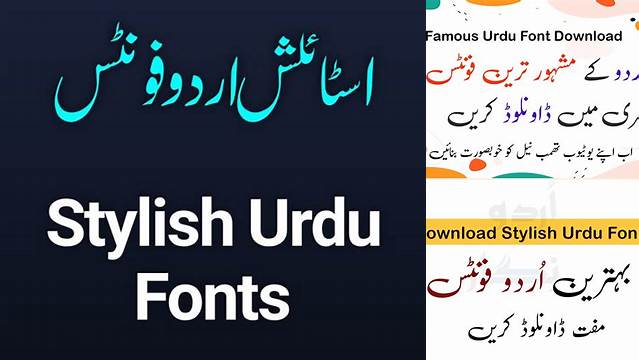
Free Urdu Font Generator Online
Hey guys! Are you looking to create some stunning Urdu text designs but struggling with fonts? Well, you've come to the right place! In this article, we're diving deep into the world of free Urdu font generators online. We'll explore everything from the basics of Urdu calligraphy to the nitty-gritty of using these fantastic tools. So, buckle up and let's get started!
Urdu Calligraphy Basics
Before we jump into the online generators, let's take a quick look at the beautiful art of Urdu calligraphy. Urdu, written from right to left, boasts a rich history of artistic expression. The flowing scripts and elegant curves make it a favorite for everything from poetry to graphic design. Understanding the fundamentals of Urdu calligraphy can help you appreciate and utilize Urdu fonts more effectively. You'll find that many online generators try to mimic these classic styles, so knowing the basics gives you a leg up. You can check out different styles like Naskh, Nastaliq, and Kufic to get inspired. Learning about the origins and evolution of these scripts adds depth to your design choices, allowing you to create pieces that are both visually appealing and culturally relevant. So, dive into the history and let your creativity flow!
Why Use an Online Urdu Font Generator?
So, why should you even bother with an online Urdu font generator? Well, for starters, they're incredibly convenient. No need to install hefty software or spend hours tweaking settings. You can access these tools from anywhere with an internet connection. Plus, many of them are completely free, which is a huge bonus. Online Urdu font generators offer a quick and efficient way to create unique Urdu text designs. They often come with a variety of templates and customization options, allowing you to experiment with different styles and effects. If you're a beginner, these generators can be a fantastic starting point to explore Urdu typography. Even seasoned designers can benefit from the speed and flexibility these tools offer. So, whether you’re working on a personal project or a professional design, online generators can save you time and effort, making them an invaluable resource.
Top Features to Look for in a Free Urdu Font Generator
When choosing an online Urdu font generator, there are a few key features you'll want to keep an eye out for. First, variety is the spice of life! Look for a generator that offers a wide range of Urdu fonts, from classic styles to modern interpretations. Customization options are also crucial. Can you adjust the size, color, and spacing? How about adding shadows or outlines? The more control you have, the better. A great Urdu font generator should offer a blend of font styles, customization options, and ease of use. Preview functionality is another must-have. You’ll want to see how your text looks before you commit to downloading it. Also, consider the output format. Does the generator allow you to download your text as an image or a vector file? This can impact how you use the text in your projects. Finally, don’t forget about user-friendliness. A clean and intuitive interface can make the whole process much smoother and more enjoyable.
Choosing the Right Urdu Font for Your Project
Choosing the right Urdu font is crucial for making your project shine. Think about the tone and purpose of your design. Are you creating something formal and elegant? Or something fun and playful? Different fonts evoke different emotions, so it's important to choose one that aligns with your message. Selecting the appropriate Urdu font is essential for conveying the right tone and message in your design. For example, a classic Nastaliq font might be perfect for a wedding invitation, while a bolder, more modern font might be better for a poster. Consider the readability of the font as well. If your text is too difficult to read, your message will get lost. Also, think about the overall design aesthetic. Does the font complement the other elements in your design? These are all important factors to consider when making your choice. So, take your time, explore different options, and choose the font that best represents your vision.
Common Mistakes to Avoid When Using Urdu Font Generators
While Urdu font generators are super helpful, there are a few common mistakes you should try to avoid. One biggie is using too many different fonts in a single project. This can make your design look cluttered and confusing. Stick to a maximum of two or three fonts for a cohesive look. Avoid common mistakes like using too many fonts, ignoring readability, overlooking licensing issues, and not proofreading your text. Another mistake is ignoring readability. A fancy font might look cool, but if people can't read your text, it's not doing its job. Also, be mindful of licensing issues. Some fonts are free for personal use but require a license for commercial use. Always double-check the terms before using a font in a project that you plan to sell. Finally, don't forget to proofread your text! Even the most beautiful font won't save you from a typo. So, keep these tips in mind and you'll be creating stunning Urdu designs in no time!
Tips for Designing with Urdu Fonts Online
Designing with Urdu fonts online can be a blast, but it also requires a bit of finesse. One key tip is to pay attention to the spacing between letters and words. Urdu script can sometimes appear crowded, so adjusting the kerning and tracking can make a big difference in readability. Effective Urdu font design involves careful spacing, color contrast, and alignment, ensuring visual appeal and readability. Another important aspect is color contrast. Make sure your text stands out against the background. A dark font on a light background is generally the safest bet, but don't be afraid to experiment with different color combinations. Alignment is another crucial element. Whether you're aligning your text left, right, or center, consistency is key. A well-aligned design looks polished and professional. Finally, remember to keep your target audience in mind. What kind of message are you trying to convey? The font you choose should reflect that message. So, use these tips to elevate your Urdu designs and make them truly stand out.
Exploring Different Styles of Urdu Fonts
The world of Urdu fonts is incredibly diverse, with a style to suit every project. Nastaliq is perhaps the most iconic Urdu script, known for its elegant curves and flowing lines. It's often used in poetry and literature. Naskh is another classic style, more geometric and straightforward, making it ideal for body text. Different Urdu font styles, such as Nastaliq, Naskh, and Kufic, offer unique aesthetics suitable for various design purposes. Kufic, with its angular and decorative forms, is often seen in Islamic art and architecture. Then there are more modern and experimental fonts that push the boundaries of traditional Urdu calligraphy. These might incorporate bold, geometric shapes or playful, hand-drawn elements. Exploring these different styles can help you find the perfect font for your project. Each style has its own unique personality and can convey a different mood or message. So, dive in and discover the rich tapestry of Urdu fonts!
Urdu Font Generator for Calligraphy
For those passionate about calligraphy, an Urdu font generator can be a game-changer. These generators often offer fonts that closely mimic the strokes and nuances of traditional calligraphy, allowing you to create stunning calligraphic designs without needing to be a master calligrapher yourself. An Urdu font generator specifically designed for calligraphy can help recreate the elegance and artistry of traditional scripts. Many calligraphy-focused generators offer options to adjust the thickness and weight of the strokes, giving you even more control over the final result. You can also find fonts that emulate specific calligraphic styles, such as Thuluth or Diwani. These tools are perfect for creating invitations, certificates, and other formal documents where a touch of elegance is desired. So, if you're looking to add a calligraphic flair to your Urdu designs, explore generators that cater specifically to this art form.
Best Online Urdu Font Generators for Beginners
If you're just starting out with Urdu fonts, finding the right online generator can make all the difference. Look for generators with a simple, intuitive interface and clear instructions. For beginners, the best online Urdu font generators offer user-friendly interfaces, clear instructions, and helpful tutorials. Generators that offer a preview function are also great for beginners, as you can see exactly how your text will look before you download it. Many generators also provide templates and pre-designed layouts, which can be a helpful starting point. Don't be afraid to try out a few different generators to see which one you like best. The goal is to find a tool that makes the process of creating Urdu text designs easy and enjoyable. With a little practice, you'll be creating beautiful designs in no time!
Urdu Font Generator for Professional Use
For professional designers, an Urdu font generator needs to offer more than just basic functionality. You'll want a generator that provides high-quality output, a wide selection of fonts, and advanced customization options. Professional Urdu font generators offer high-quality output, extensive font libraries, and advanced customization features for commercial projects. The ability to download fonts in vector format is crucial, as this allows you to scale the text without losing quality. Licensing is also a key consideration. Make sure the generator offers fonts that are suitable for commercial use. Paid generators often provide more robust features and better licensing terms, making them a worthwhile investment for professional projects. So, if you're looking to use Urdu fonts in your professional work, choose a generator that meets your specific needs and requirements.
Using Urdu Font Generator for Social Media
Social media is a visual medium, and using eye-catching Urdu fonts can help your content stand out. An online generator can be a quick and easy way to create graphics with stylish Urdu text for your social media posts. An Urdu font generator can be used to create visually appealing text for social media posts, enhancing engagement and reach. When designing for social media, readability is key. Choose fonts that are clear and easy to read, even on small screens. Consider using bold fonts or adding a background color to make your text pop. You can also use different font styles to highlight key messages or create visual interest. Many generators offer templates specifically designed for social media, which can save you time and effort. So, use the power of Urdu fonts to elevate your social media presence and engage your audience.
Urdu Font Generator for Logos
A well-designed logo can make a big impact, and choosing the right Urdu font is crucial. An online generator can help you experiment with different font styles and create a unique logo that reflects your brand identity. An Urdu font generator can assist in creating unique and memorable logos that effectively represent a brand's identity. When designing a logo, simplicity is often best. Choose a font that is clean, legible, and memorable. Avoid fonts that are too ornate or difficult to read. Consider the overall aesthetic of your brand. Is it modern and minimalist, or traditional and elegant? The font you choose should align with your brand's personality. You can also use an Urdu font generator to create variations of your logo, such as a version with text only or a version with an icon and text. So, use these tools to craft a logo that truly represents your brand.
Urdu Font Generator for Graphic Design
Graphic design relies heavily on typography, and Urdu fonts can add a unique flair to your projects. An online generator can be a valuable tool for graphic designers, allowing you to quickly create text elements in various styles. Urdu font generators are valuable tools for graphic designers, enabling the creation of unique and stylish text elements. Whether you're designing a poster, a brochure, or a website, the right font can make all the difference. Experiment with different font styles, sizes, and colors to create visually appealing layouts. Consider the overall composition of your design. How does the Urdu text interact with other elements, such as images and shapes? Use the generator to preview your text in different contexts and make adjustments as needed. So, embrace the versatility of Urdu fonts and elevate your graphic designs.
Urdu Font Generator for Website Design
Choosing the right Urdu fonts for your website is crucial for creating a visually appealing and user-friendly experience. An online generator can help you find fonts that complement your website's design and enhance readability. For website design, Urdu font generators can help select fonts that enhance readability and complement the overall design. When selecting fonts for your website, consider the overall aesthetic of your site. Is it modern and minimalist, or traditional and ornate? The fonts you choose should align with your website's brand identity. Readability is also a key factor. Choose fonts that are easy to read on screen, even at small sizes. Use different fonts for headings and body text to create visual hierarchy. You can also use an Urdu font generator to create graphics and banners for your website. So, use the power of Urdu fonts to create a website that is both beautiful and functional.
Urdu Font Generator for Posters and Banners
When designing posters and banners, you want to make a big impact, and using striking Urdu fonts can help you achieve that. An online generator can be a valuable tool for creating eye-catching text elements. Urdu font generators are excellent for creating striking text elements for posters and banners, ensuring they capture attention. Choose fonts that are bold, legible, and visually appealing. Consider the overall design of your poster or banner. How does the Urdu text interact with other elements, such as images and graphics? Use different font styles and sizes to create visual hierarchy and highlight key messages. You can also use an Urdu font generator to create variations of your text, such as adding shadows or outlines. So, use these tools to create posters and banners that grab attention and convey your message effectively.
Urdu Font Generator for Invitations
Creating elegant invitations requires careful attention to detail, and choosing the right Urdu font is essential. An online generator can help you find fonts that convey a sense of sophistication and style. For invitations, Urdu font generators can assist in selecting elegant fonts that convey sophistication and style. Consider the occasion for the invitation. Is it a wedding, a birthday party, or a formal event? The font you choose should align with the tone and formality of the event. Classic Urdu fonts, such as Nastaliq, are often a great choice for invitations. Experiment with different font sizes and colors to create a visually appealing layout. You can also use an Urdu font generator to add decorative elements to your invitation, such as borders or flourishes. So, use these tools to create invitations that are both beautiful and memorable.
Urdu Font Generator for Certificates
Certificates often require a touch of formality and elegance, and the Urdu font you choose can play a big role in conveying that. An online generator can help you find fonts that are both professional and visually appealing. Urdu font generators help select professional and visually appealing fonts for certificates, ensuring they convey formality and elegance. Choose fonts that are legible and easy to read, but also have a sense of style. Classic Urdu fonts, such as Naskh, are often a good choice for certificates. Consider using different font sizes and weights to create visual hierarchy and highlight key information. You can also use an Urdu font generator to add decorative elements to your certificate, such as borders or seals. So, use these tools to create certificates that are both impressive and meaningful.
Urdu Font Generator for T-shirt Designs
If you're designing a t-shirt with Urdu text, an Urdu font generator can be a valuable tool. You'll want a font that is bold, legible, and visually appealing. For t-shirt designs, Urdu font generators offer fonts that are bold, legible, and visually appealing, making the text stand out. Choose a font that reflects the style and message of your design. Is it fun and playful, or serious and meaningful? Consider the overall design of your t-shirt. How does the Urdu text interact with other elements, such as graphics and images? Use the generator to preview your text on a t-shirt mockup to see how it looks. You can also experiment with different font colors and sizes to create a design that stands out. So, use these tools to create t-shirt designs that are both stylish and impactful.
Urdu Font Generator for Book Covers
The font you choose for a book cover can significantly impact its appeal. An Urdu font generator can help you find a font that captures the essence of your book and attracts readers. For book covers, Urdu font generators assist in selecting fonts that capture the essence of the book and attract readers. Consider the genre of your book. Is it a novel, a poetry collection, or a non-fiction work? The font you choose should align with the genre and tone of the book. Classic Urdu fonts, such as Nastaliq, are often a good choice for literary works. Consider the readability of the font as well. Choose a font that is easy to read, even at small sizes. You can also use an Urdu font generator to create variations of your title, such as adding shadows or outlines. So, use these tools to create book covers that are both visually appealing and informative.
Urdu Font Generator for Business Cards
A well-designed business card can leave a lasting impression, and choosing the right Urdu font is crucial. An online generator can help you find a font that is both professional and legible. Urdu font generators can help select professional and legible fonts for business cards, creating a lasting impression. Choose a font that reflects your brand identity and is easy to read at a small size. Consider the overall design of your business card. How does the Urdu text interact with other elements, such as your logo and contact information? Use different font sizes and weights to create visual hierarchy and highlight key information. You can also use an Urdu font generator to create variations of your business card, such as a version with Urdu text and a version with English text. So, use these tools to create business cards that are both stylish and effective.
Urdu Font Generator for Wedding Cards
Wedding cards call for elegance and sophistication, and the Urdu font you choose is a key element. An online generator can help you find fonts that convey the right mood and style. For wedding cards, Urdu font generators are helpful in finding fonts that convey the right mood and style. Classic Urdu fonts, such as Nastaliq, are often a beautiful choice for wedding invitations. Consider the overall design of your wedding card. How does the Urdu text interact with other elements, such as floral designs or decorative borders? Use the generator to experiment with different font sizes, colors, and spacing to achieve the perfect look. You can also use an Urdu font generator to add decorative elements to your cards, making them even more special. So, use these tools to create wedding cards that are truly memorable.
Urdu Font Generator for Religious Texts
When working with religious texts in Urdu, the font you choose should be respectful and legible. An online generator can help you find fonts that are appropriate for religious contexts. When working with religious texts, Urdu font generators can help in finding fonts that are respectful and legible. Classic Urdu fonts, such as Naskh, are often a good choice for religious texts due to their clarity and traditional appeal. Consider the specific religious tradition and choose a font that aligns with its aesthetic. Readability is crucial, so select a font that is easy to read, even in long passages. You can also use the generator to adjust the spacing and layout of the text to ensure it is presented in a clear and dignified manner. So, use these tools to create religious texts that are both beautiful and respectful.
Urdu Font Generator for Poetry
Urdu poetry is known for its beauty and expressiveness, and the font you choose can enhance the impact of the words. An online generator can help you find fonts that complement the poetic style and mood. For poetry, Urdu font generators can assist in finding fonts that complement the poetic style and mood. Fonts that evoke a sense of elegance and flow, such as Nastaliq, are often a great choice for Urdu poetry. Consider the tone of the poem. Is it romantic, reflective, or passionate? The font you choose should align with the poem's emotional content. Experiment with different font sizes and styles to emphasize certain words or phrases. You can also use the generator to adjust the spacing and alignment of the text to create a visually appealing layout. So, use these tools to present Urdu poetry in a way that is both beautiful and meaningful.
Urdu Font Generator for Educational Materials
When creating educational materials in Urdu, clarity and readability are paramount. An online generator can help you find fonts that are easy for students to read and understand. For educational materials, Urdu font generators can help in finding fonts that are easy for students to read and understand. Choose fonts that are clean and straightforward, such as Naskh. Avoid fonts that are too ornate or decorative, as they can be distracting for young readers. Use the generator to adjust the font size and spacing to ensure the text is legible on the page or screen. You can also use different font styles to highlight key terms or concepts. So, use these tools to create educational materials that are both informative and accessible.
Urdu Font Generator for Newsletters
Newsletters require a balance of visual appeal and readability, and the Urdu font you choose plays a key role. An online generator can help you find fonts that engage readers while delivering information effectively. For newsletters, Urdu font generators can help in finding fonts that engage readers while delivering information effectively. Choose fonts that are easy to read in both headings and body text. Consider using different font styles to create visual hierarchy and highlight important sections. Experiment with different font sizes and colors to make your newsletter visually appealing. You can also use an Urdu font generator to create graphics and banners for your newsletter. So, use these tools to create newsletters that are both informative and engaging.
Urdu Font Generator for Presentations
When creating presentations in Urdu, the fonts you choose can impact how well your message is received. An online generator can help you find fonts that are both professional and easy to read on screen. For presentations, Urdu font generators can assist in selecting fonts that are professional and easy to read on screen. Choose fonts that are clear and legible, even when projected onto a large screen. Consider using different font styles for headings and body text to create visual hierarchy. Use the generator to preview your slides and make sure the text is easily readable from a distance. You can also experiment with different font colors and sizes to create visually engaging slides. So, use these tools to create presentations that are both informative and visually appealing.
Urdu Font Generator for Mobile Devices
Designing for mobile devices requires careful attention to typography, as text needs to be legible on small screens. An Urdu font generator can help you find fonts that work well in a mobile context. For mobile devices, Urdu font generators can assist in finding fonts that work well in a mobile context. Choose fonts that are clear and easy to read, even on smaller screens. Avoid fonts that are too condensed or ornate, as they can be difficult to decipher. Consider the overall design of your mobile app or website. How does the Urdu text interact with other elements, such as icons and images? Use the generator to preview your text on a mobile device to ensure it is legible and visually appealing. So, use these tools to create mobile designs that are both functional and stylish.
Future Trends in Urdu Font Generation
The world of Urdu fonts is constantly evolving, and online generators are at the forefront of these changes. We can expect to see more advanced features, such as AI-powered font recommendations and real-time font customization. Future trends in Urdu font generation include AI-powered recommendations, real-time customization, and integration with design platforms. Integration with popular design platforms, such as Adobe Creative Suite, will also become more common. We may also see the emergence of more specialized Urdu font generators, catering to specific design needs or artistic styles. The rise of virtual reality and augmented reality may also lead to new applications for Urdu fonts in immersive environments. So, the future of Urdu font generation is bright, with exciting possibilities on the horizon.
So there you have it, guys! Everything you need to know about free Urdu font generators online. From understanding the basics of Urdu calligraphy to choosing the right font for your project, we've covered it all. These tools are a fantastic resource for anyone looking to create stunning Urdu text designs, whether you're a beginner or a seasoned pro. So, go ahead and explore the world of Urdu fonts. Experiment with different styles, customize your text, and create something amazing. Happy designing!**